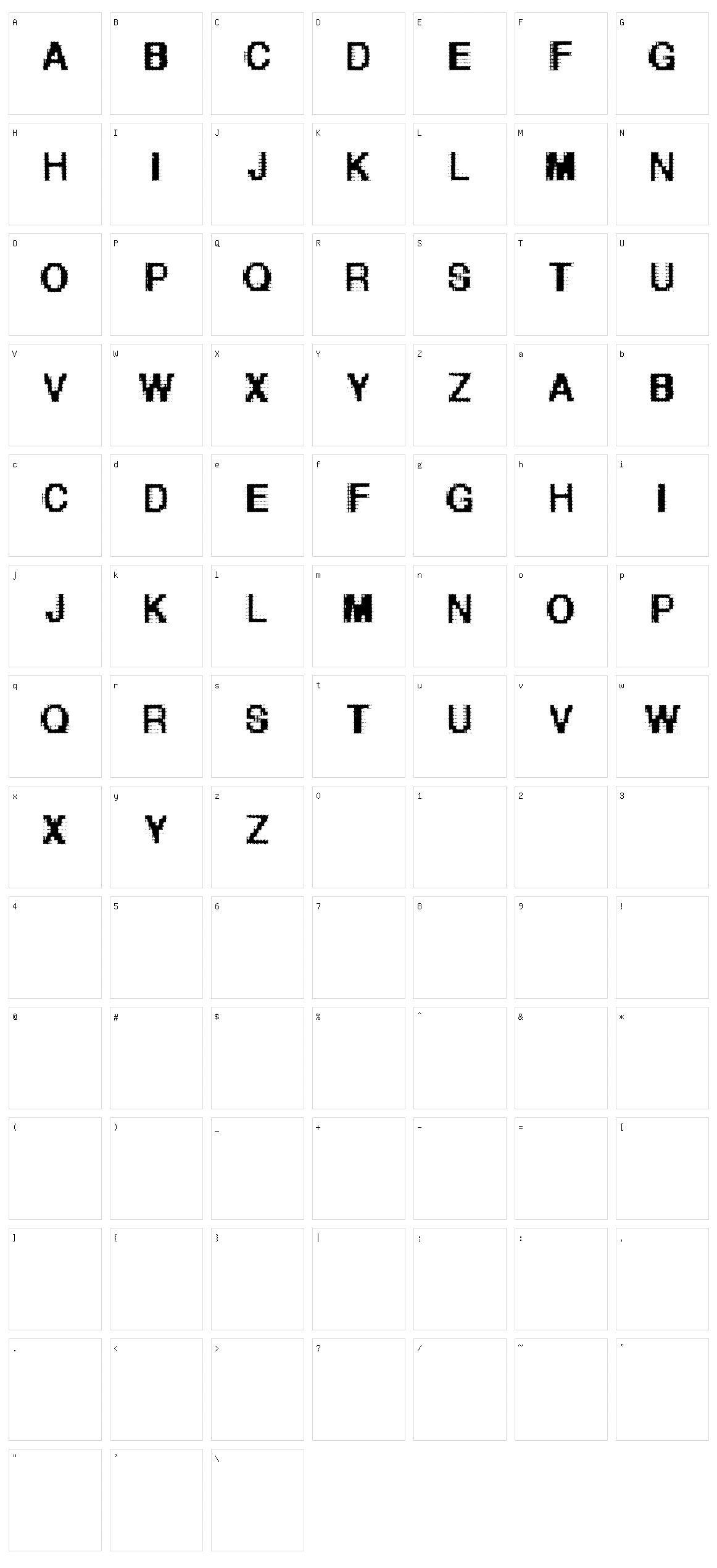
The free font Helvetica Grosse Bit is carefully designed by Joël Frl, showcasing a thoughtful balance of creativity and usability and falls under the Distorted font style. When you download the ZIP file, it contains only 137.05 KB of font files, making it lightweight and quick to download. Please review the license details below to understand permitted usage and distribution rights. If license information is not available, we recommend using this font for personal projects only or contacting the author directly for commercial usage permissions.